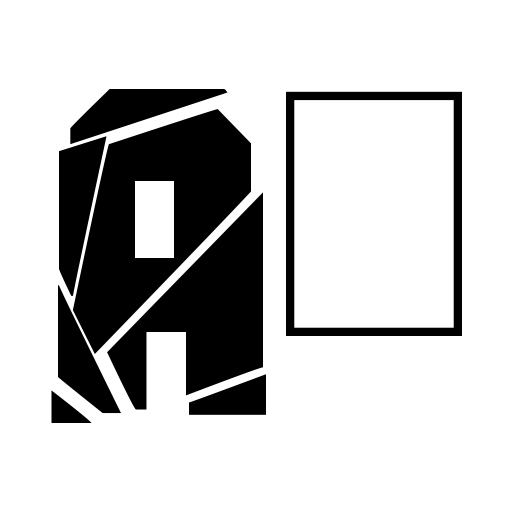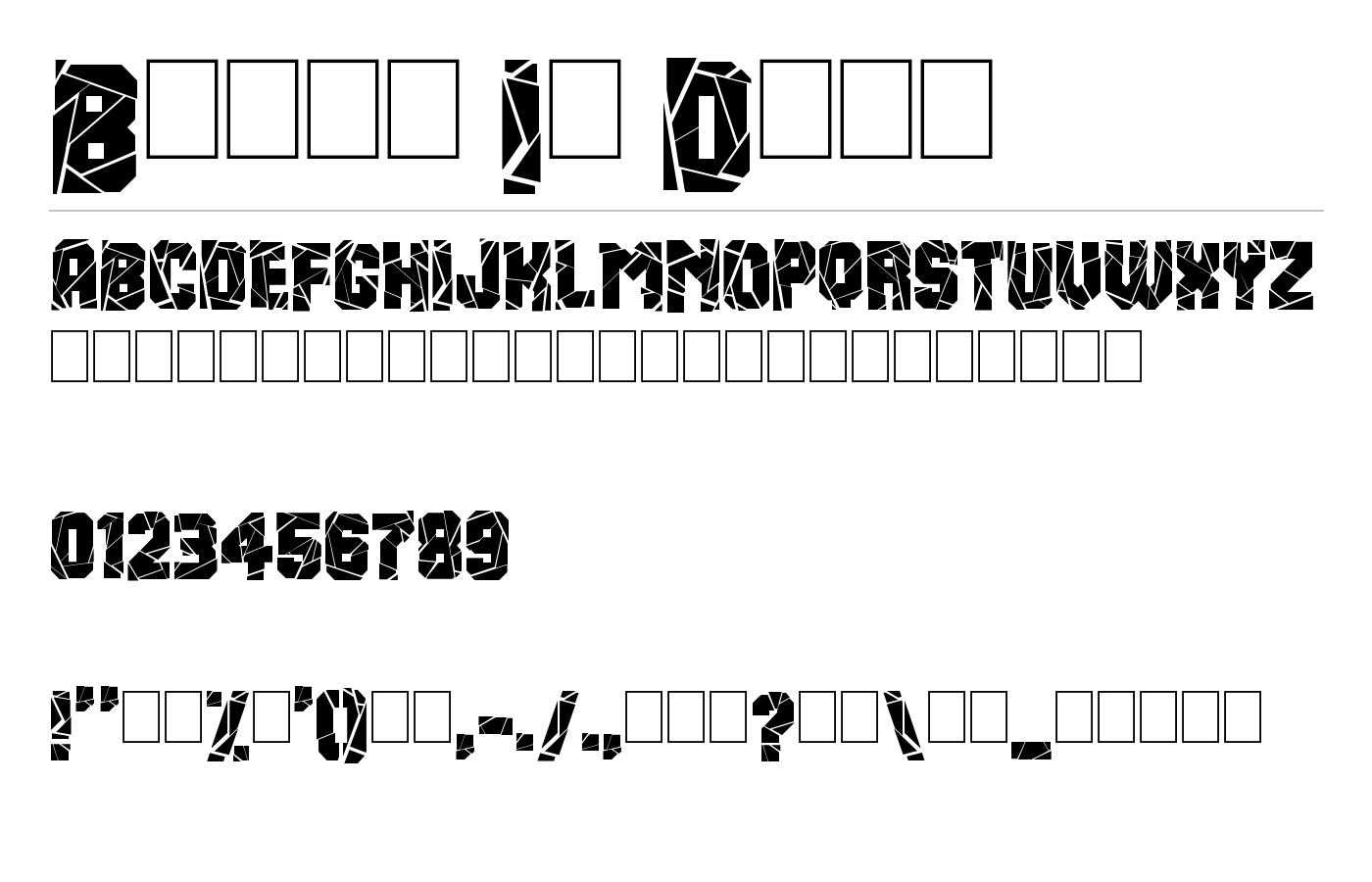
Break It Down Font is a bold, angular display typeface featuring fragmented, shattered shapes that give it a striking, geometric look. Its strong, condensed letterforms and high contrast between solid black areas and white breaks make it perfect for attention-grabbing headlines, logos, and creative designs with an edgy or modern vibe. This font shines in contexts where a dramatic, impactful style is needed to convey energy and uniqueness.
Break It Down Font
About Break It Down Font
| Font family | Break It Down Font |
| Designer | IMAGEX |